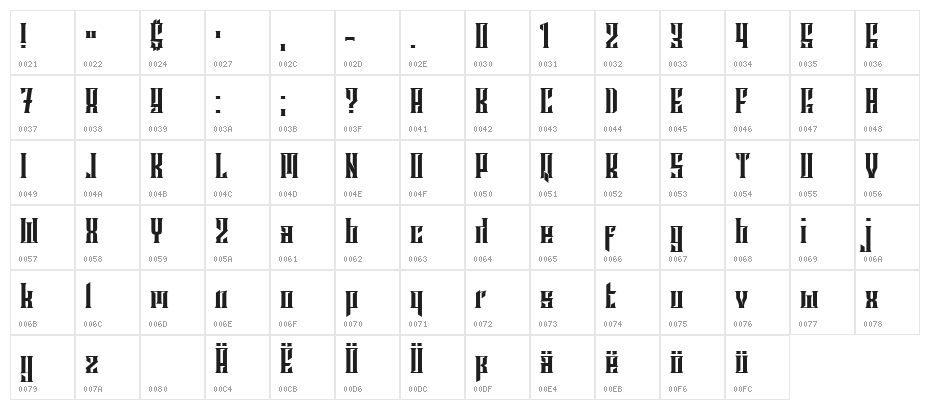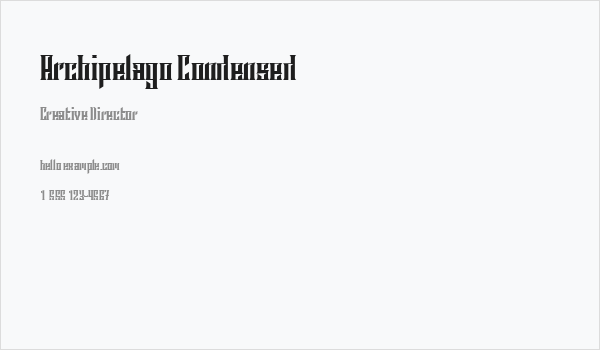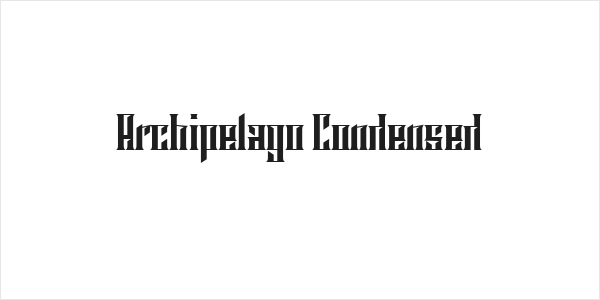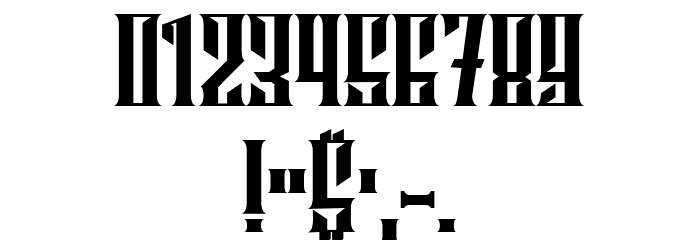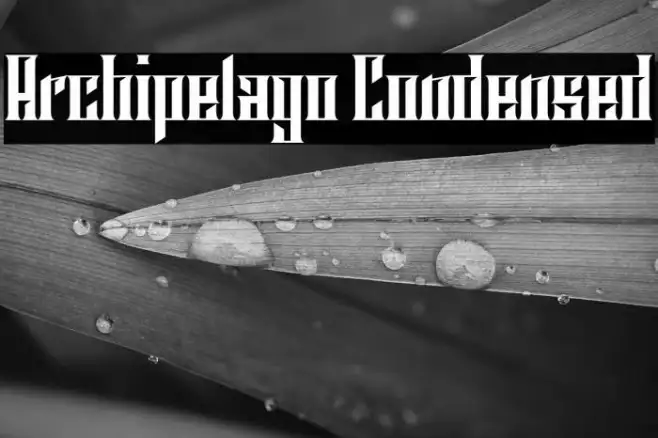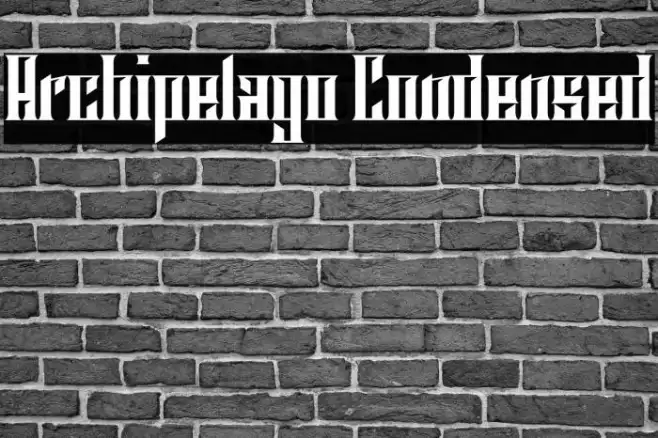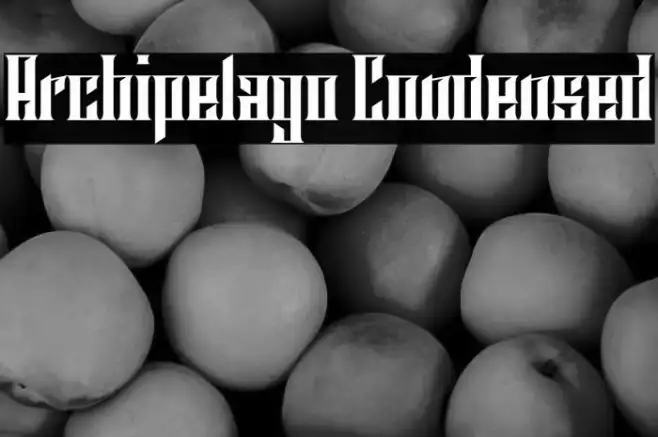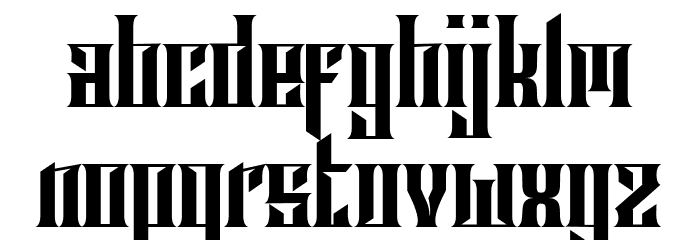
Archipelago Condensed Font
Archipelago Condensed Description
This font features a bold and condensed style with a strong geometric structure. The characters are sharply defined with high contrast between thick and thin strokes, giving it a dramatic and impactful appearance. The uppercase letters are particularly striking, with angular lines and a modern, almost futuristic aesthetic. The lowercase letters maintain the same boldness, ensuring consistency throughout the typeface. The numbers and special characters follow the same design principles, making them easily recognizable and cohesive with the rest of the font. This font's unique style makes it stand out, ideal for projects that require a strong visual presence.